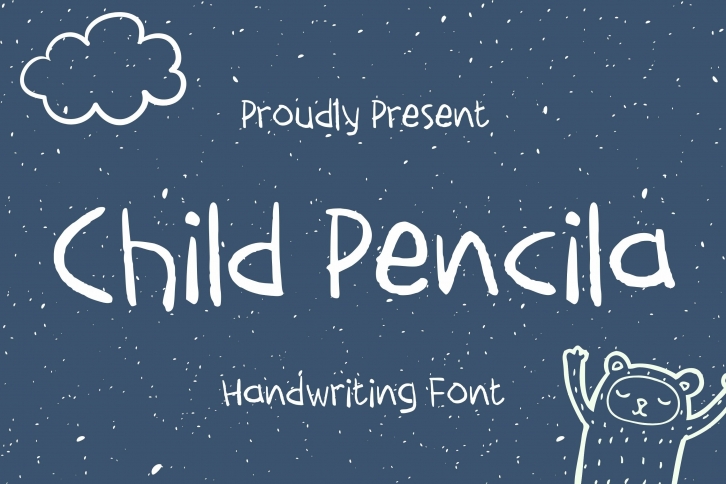
Child Pencila is a beautiful font that was designed by Aisyah. It's a great choice for designers and creatives who need such a font. It was released on November 15, 2022 and the file size is 3.64 MB. Child Pencila may give a more youthful, expressive and casual look to your project. It is a very beautiful, refined, elegant, and high-quality font.